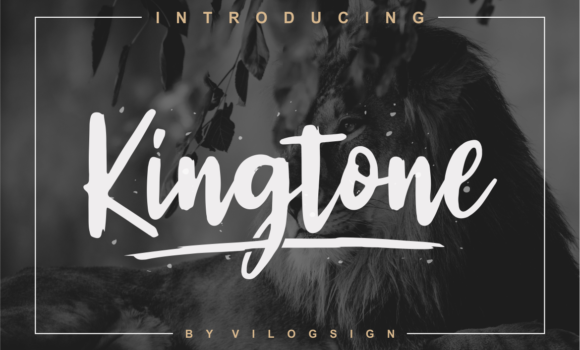
kingtone
Kingtone Font – Free Download Introduction to Kingtone Font Kingtone is a bold and strong handwritten font with heaps of personality. 📸 Preview Gallery 6 images 📌 Product Name Kingtone Font 👤 Author Vilogsign 📂 Category Explore ⬇️ Download Kingtone